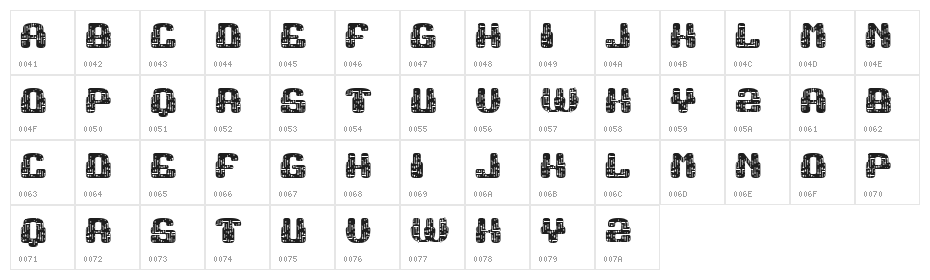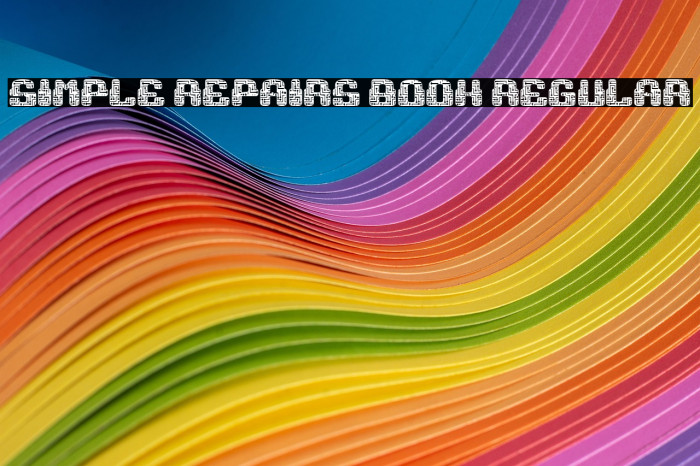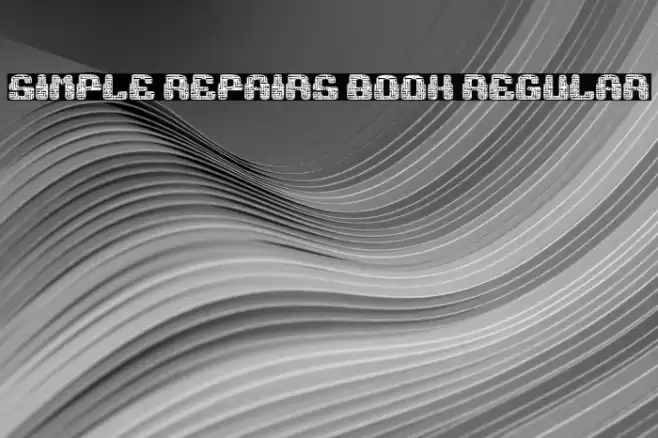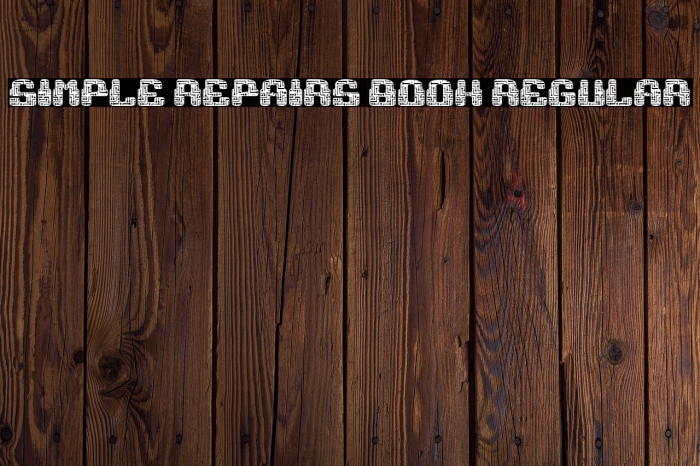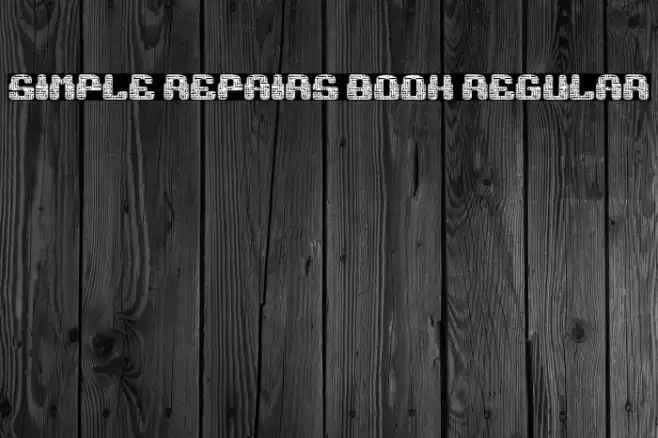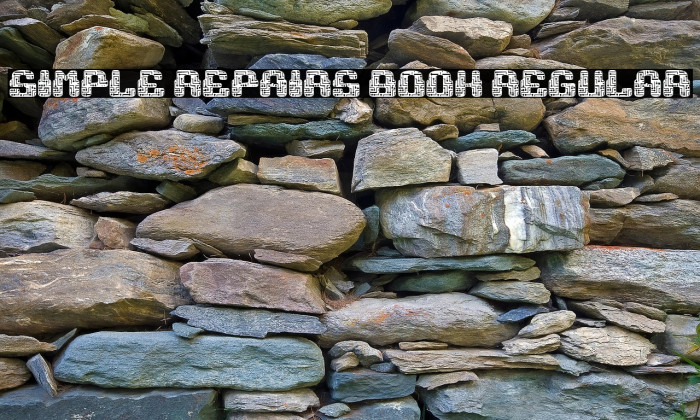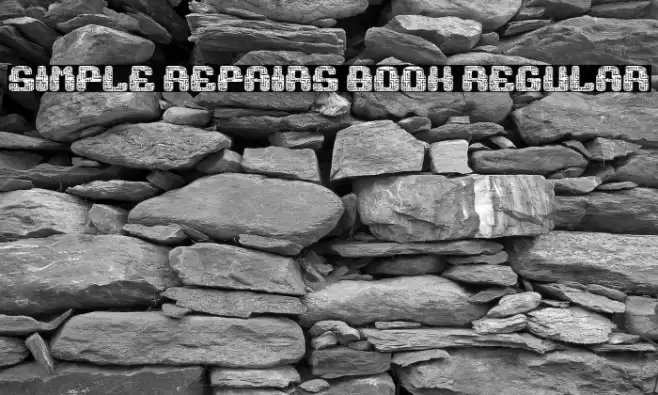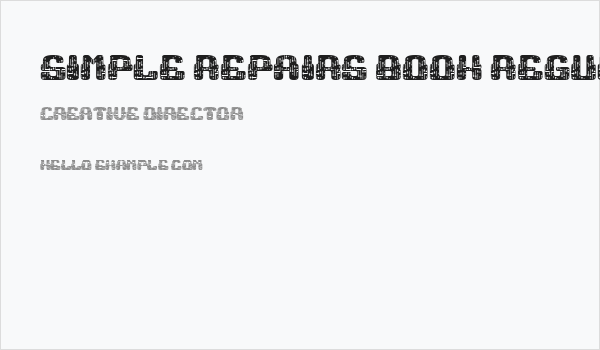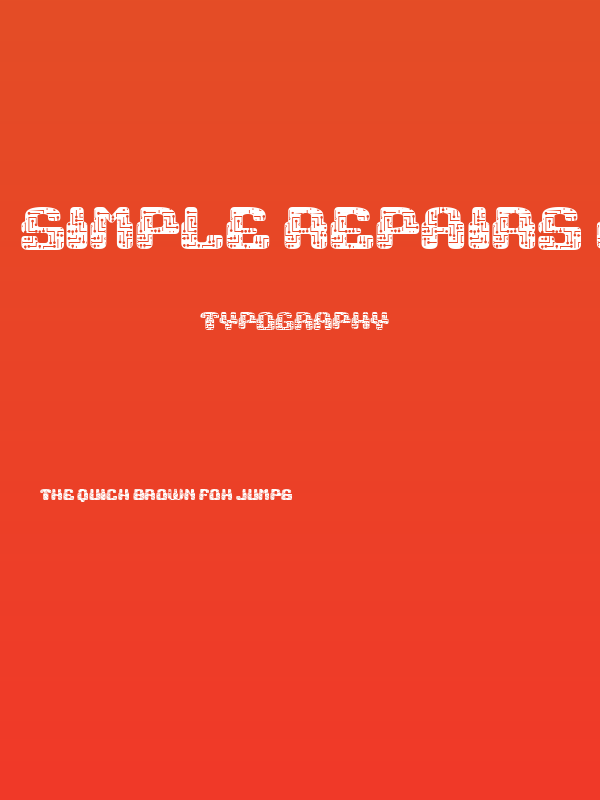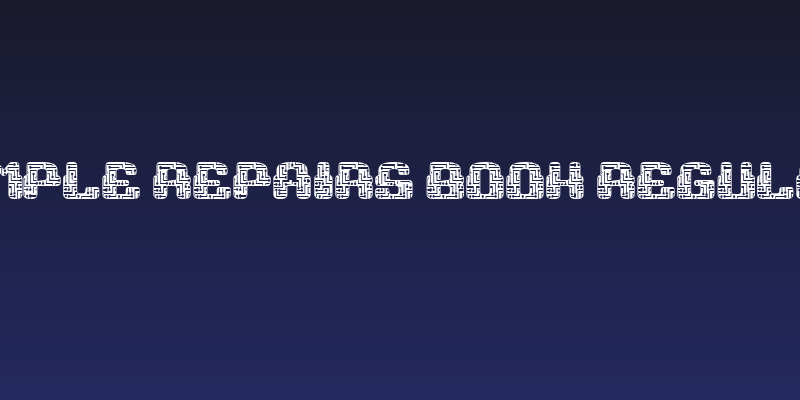
Simple Repairs Book Regular Font
Simple Repairs Book Regular Description
This font features a unique and intricate design, with each character composed of a maze-like pattern that creates a sense of complexity and depth. The letters are bold and have a uniform thickness, giving them a strong presence. The geometric shapes within each character add a decorative and modern touch, making the font stand out. The overall appearance is both artistic and structured, suitable for creative projects that require a distinctive and eye-catching typeface.
| Proposed Projects | Ideal for use in graphic design projects, posters, album covers, and branding materials that aim to capture attention with a unique and artistic flair. |